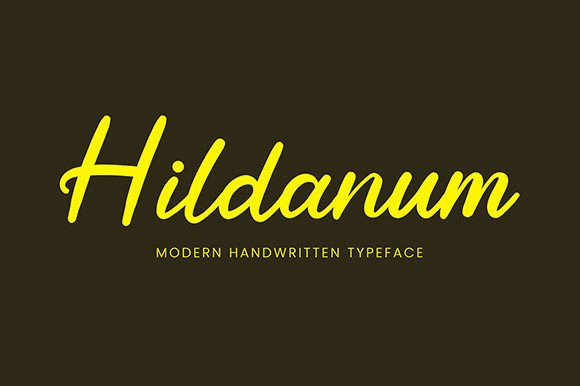
Introducing Hildanum Font, the enchanting script font that weaves a captivating tale of Christmas cheer and warmth. Crafted by the talented team at chatype studio, this font is not just a collection of letters—it's an artistic expression of the holiday spirit. With its flowing, handwritten strokes, Hildanum beckons you into a world of festivity and joy.
Let Hildanum grace your Christmas stockings, creating personalized keepsakes that tell a unique story. Its elegant curves and graceful lines evoke a sense of nostalgia, reminding us of the magic and wonder of the holiday season. Hildanum effortlessly blends the charm of tradition with a modern touch, making it the perfect choice for those seeking a timeless yet contemporary aesthetic.
Whether you're designing Christmas cards, creating festive posters, or personalizing holiday gifts, Hildanum is your font of choice. Its versatility extends far beyond Christmas, making it a valuable addition to your font collection for any project that calls for a touch of elegance and sophistication.
Don't settle for ordinary fonts that fail to capture the essence of the holiday season. Embrace the enchanting charm of Hildanum and let your designs radiate with the warmth and joy of Christmas. Experience the magic of Hildanum and immerse yourself in a world of festive typography.